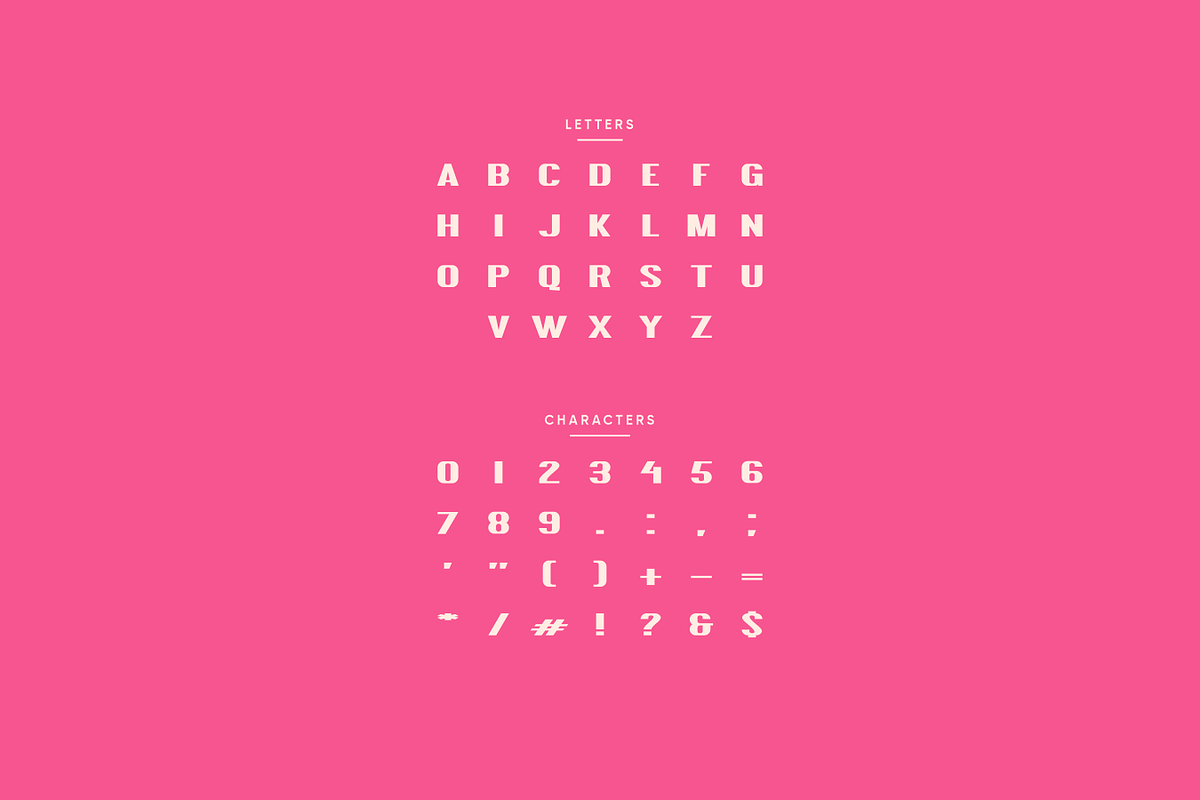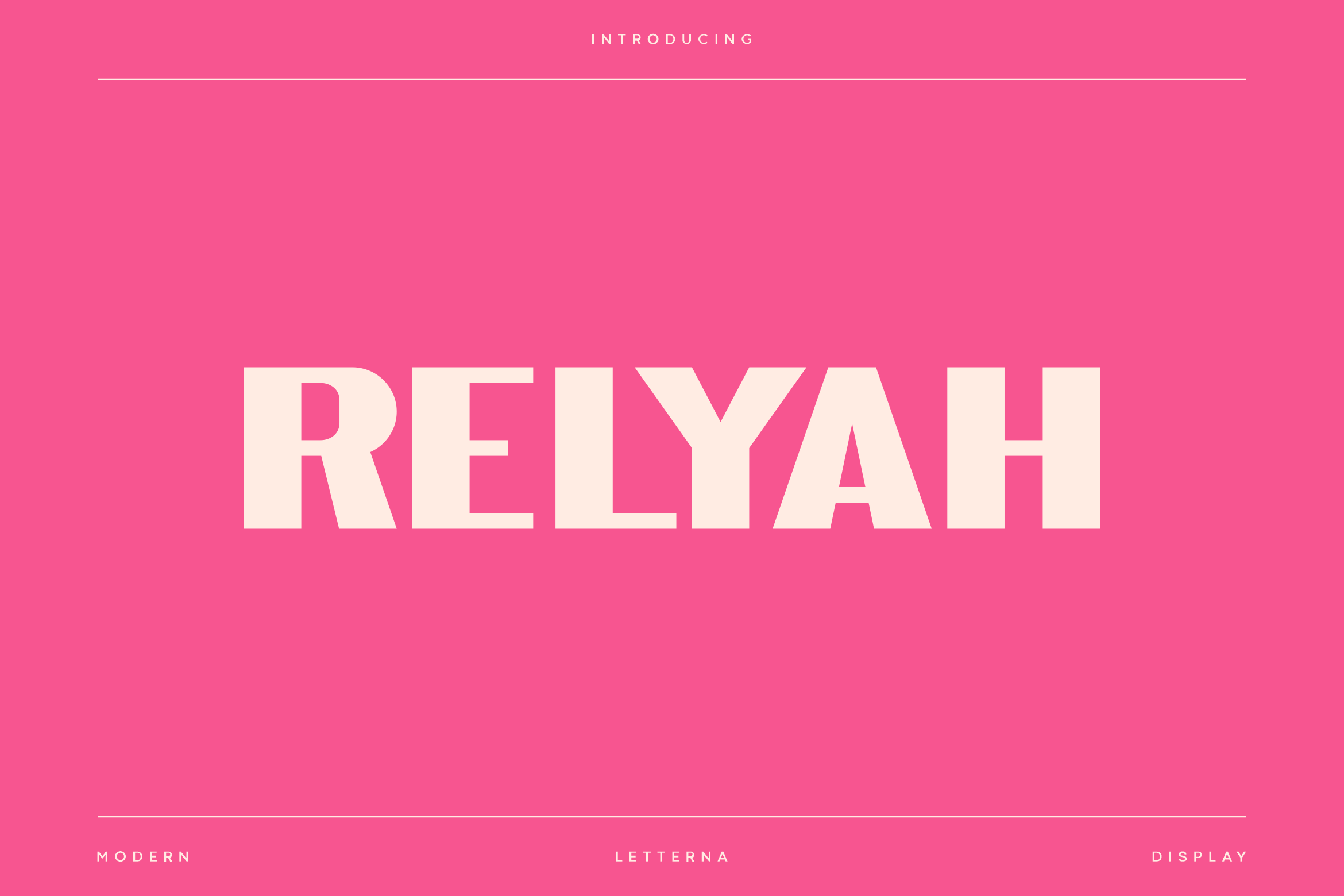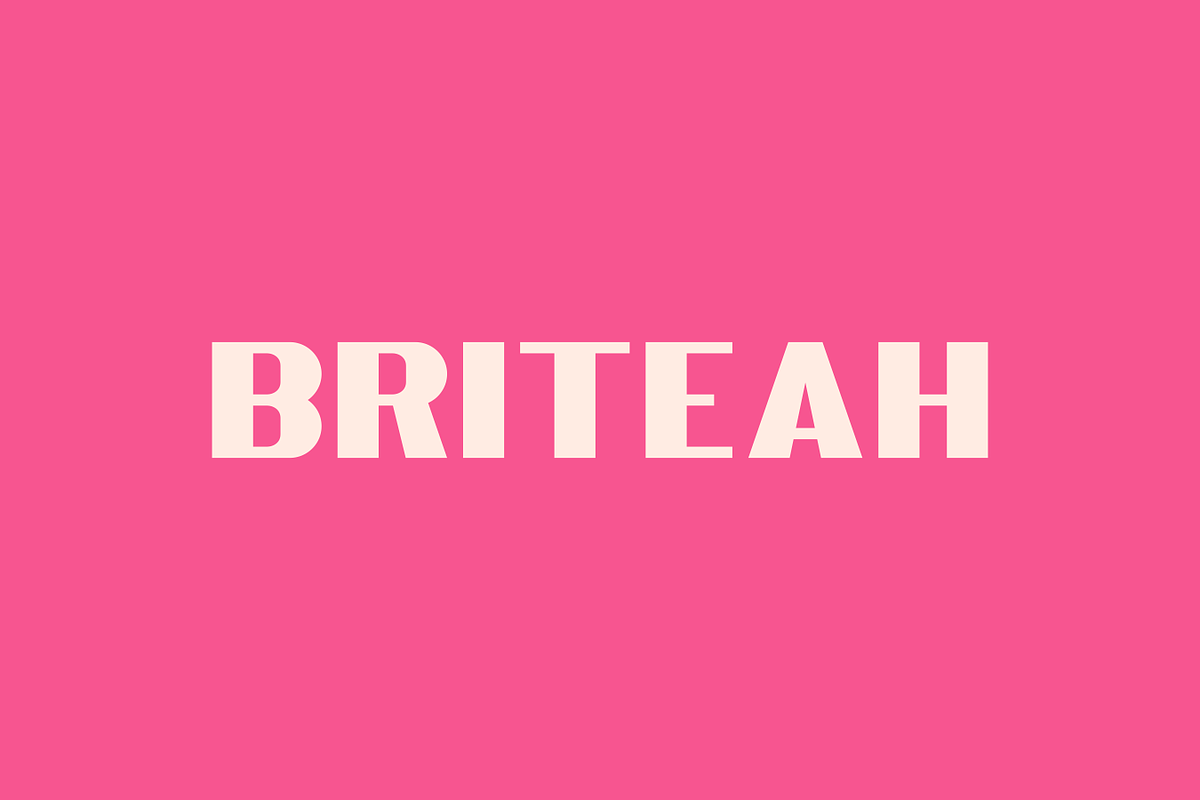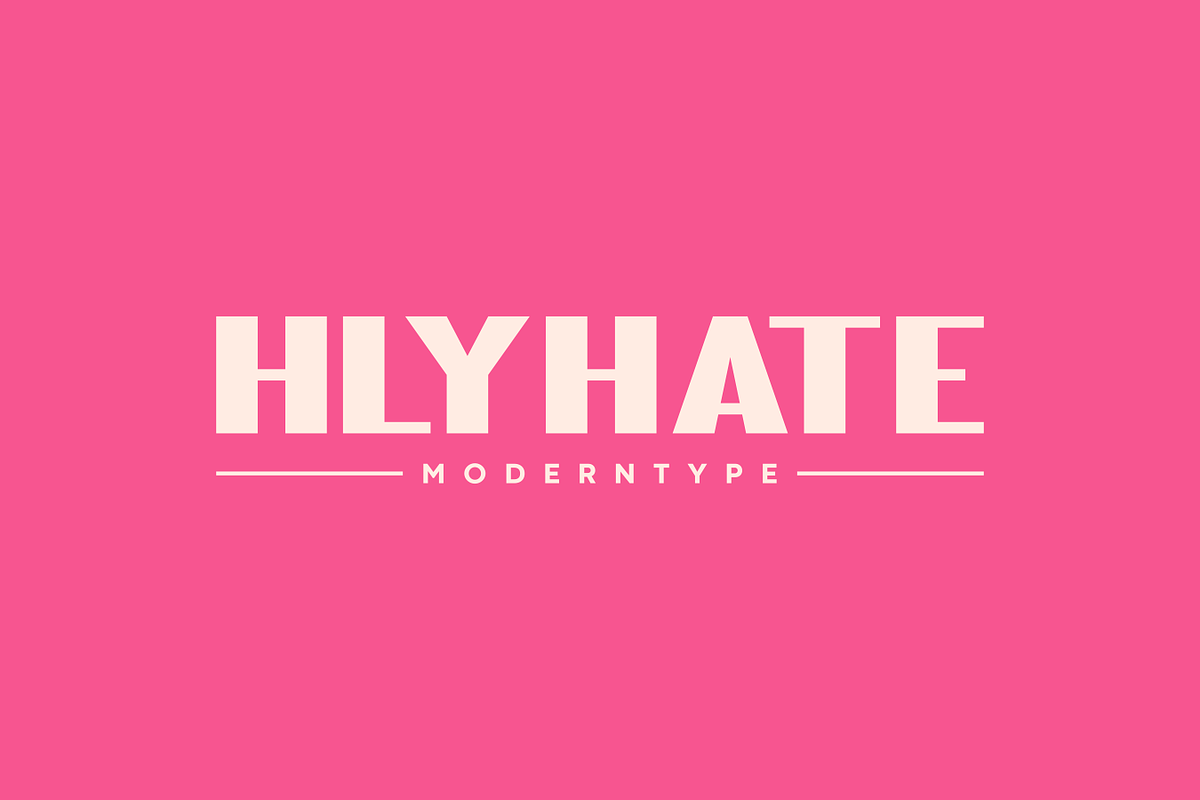
Relyah - Modern Display Typeface
Relyah is a modern sans-serif font that offers the perfect balance between strength and elegance. This font features a clean, precise, and versatile design. Each letter is meticulously crafted, ensuring high readability and visual appeal in various sizes. Ideal for a wide range of design applications, from branding to editorial, this font brings a contemporary and professional touch to every project.